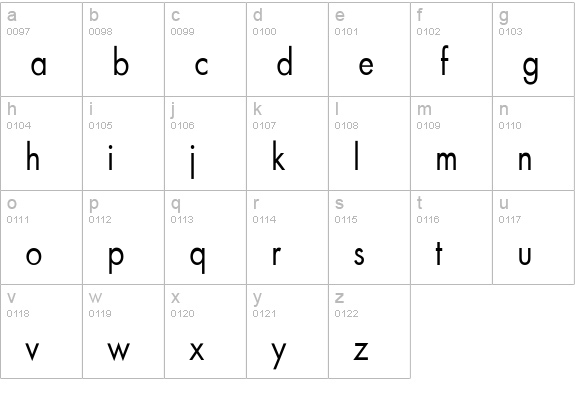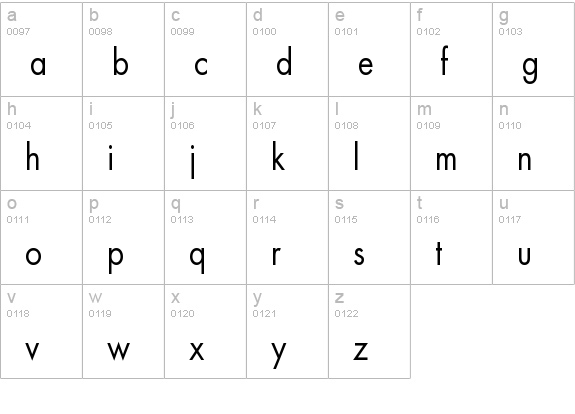
FuturaCnd-Norma Font Details
FuturaCnd-Norma is a sleek and modern font that exudes sophistication and elegance. With its clean lines and geometric shapes, this typeface is perfect for conveying a sense of professionalism and style in any design project. The versatility of FuturaCnd-Norma makes it suitable for a wide range of applications, from branding to editorial design. What sets FuturaCnd-Norma apart is that it is not only visually appealing but also free to download. You can easily access this font at FontsMarket.com, where you can explore its full potential and incorporate it into your creative work. Whether you're designing a logo, creating a poster, or crafting a website, FuturaCnd-Norma will elevate your project and leave a lasting impression on your audience. Don't miss out on this opportunity to enhance your designs with this stunning and accessible font.